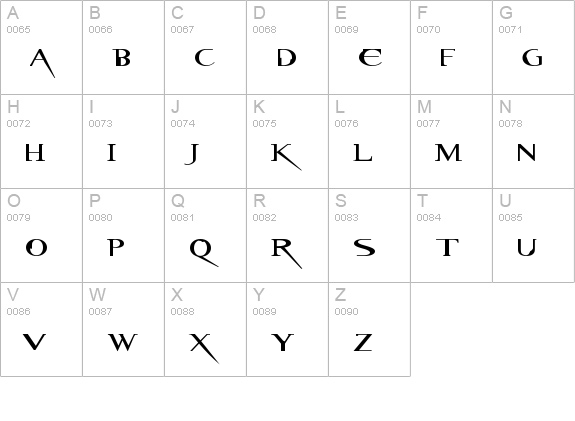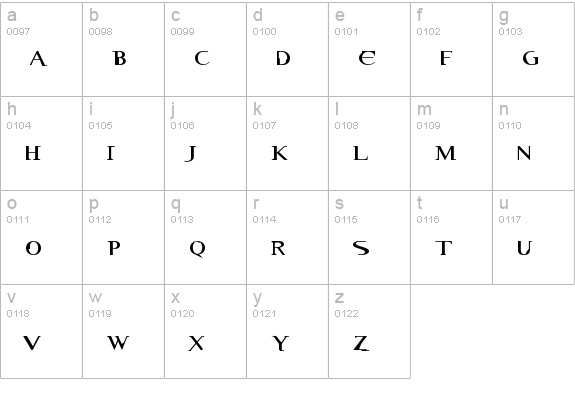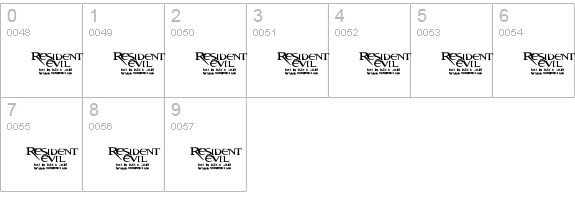
Resident Evil Font Details
The Resident Evil font captures the essence of survival horror with its eerie and atmospheric design. Inspired by the iconic video game series, this font exudes a sense of mystery and suspense, making it perfect for Halloween-themed projects, horror movie posters, or anything that needs a touch of the macabre. Best of all, the Resident Evil font is available for free download at FontsMarket.com. Whether you're a fan of the franchise or just looking to add a spooky edge to your designs, this font is sure to make a chilling impression. Download it today and unleash the terror of Resident Evil in your creations.